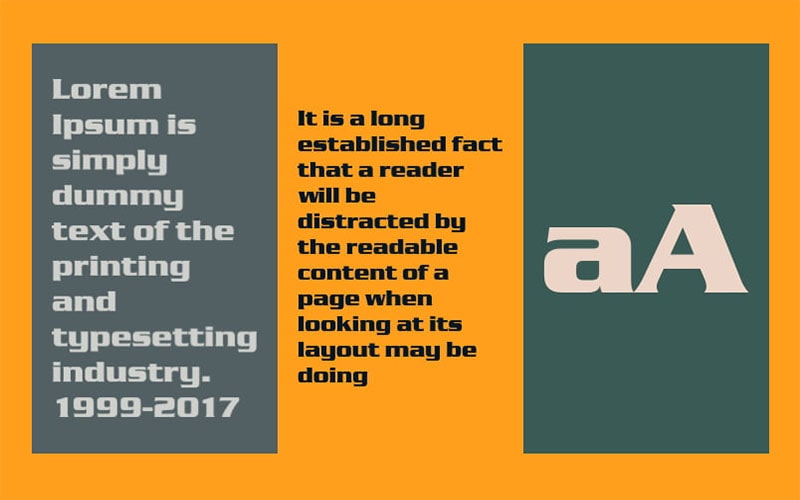
Serpentine is a bold and dynamic sans-serif typeface designed by Dick Jensen in 1972. Known for its distinctive, wide letterforms and unique angular design.
It is a sans-serif typeface characterized by its wide, extended letterforms and sharp, angular lines. This design gives it a futuristic and sporty look, making it stand out in any design.
The font comes in multiple weights, including Light, Medium, Bold, and Extra Bold. Some versions also include italic styles, adding to its versatility in various design contexts.
It is often used in branding, logos, and display settings where a strong, impactful presence is needed. The font supports a wide range of Latin-based languages, making it suitable for international use.
Serpentine Font
| Style: | Bold, Sans Serif, Typeface |
| Font Designer: | Dick Jensen |
With its wide, extended letterforms and sharp, angular lines, Serpentine makes a strong visual impact, perfect for branding, logos, and display text.
So, this Font works nicely with other logos sans serif typefaces. You may use the Tungsten Font designed by Hoefler, and Frere Jones and the Virtuose Font designed by Changki Han.